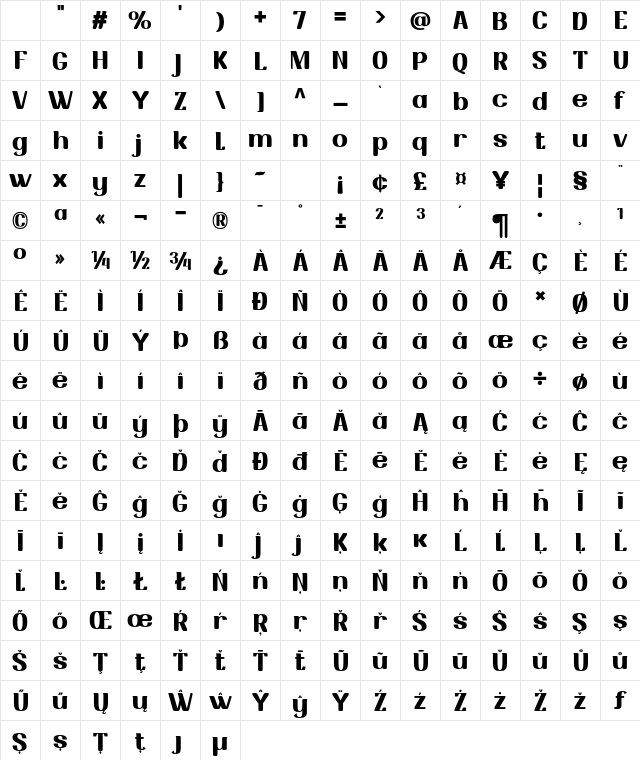
Complete Drafbink Trial Regular glyph index. Displaying only characters natively supported by Drafbink Trial Regular font.
Drafbink Trial is a composed and adaptable typeface that performs quietly and consistently across a wide range of design contexts.